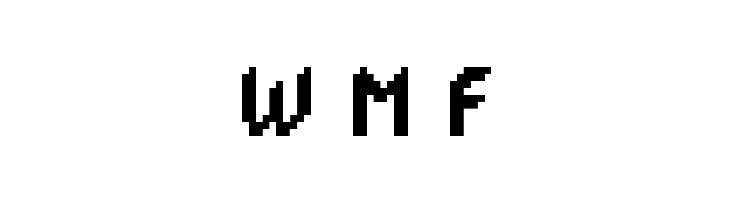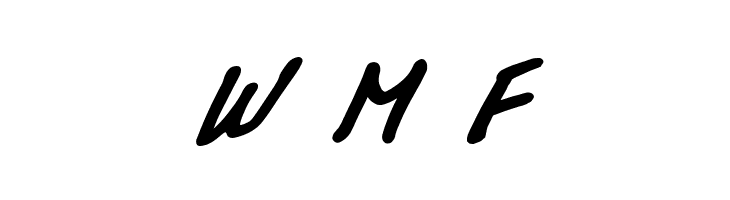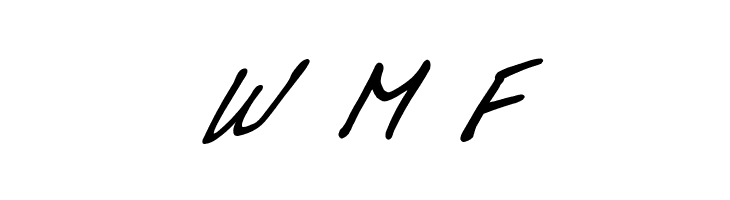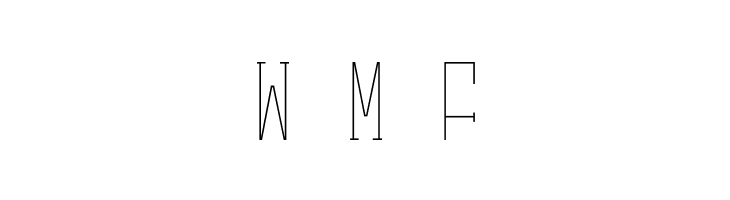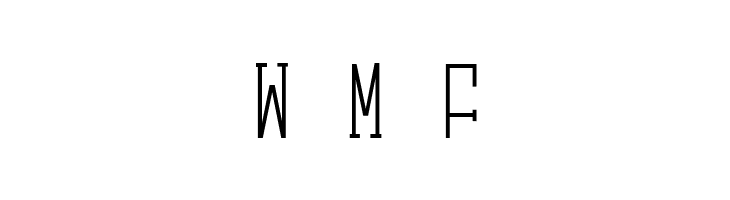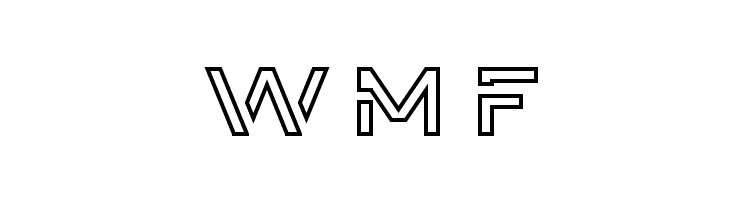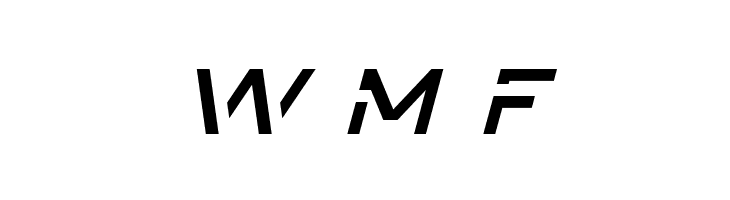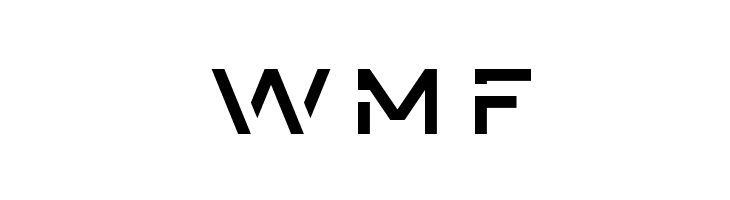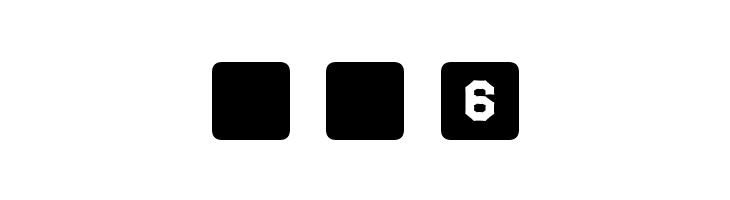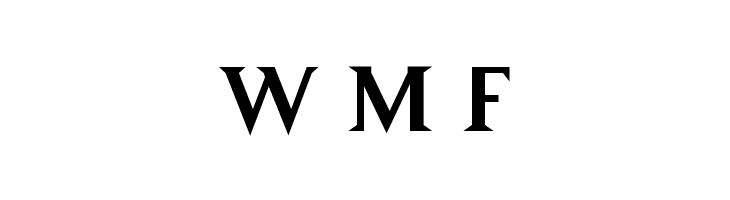
A bold, geometric font with a futuristic and modern design.
A sleek, modern italic font with a dynamic, futuristic design.
A modern, geometric outline font with a futuristic design.
A geometric, angular font with thin strokes and a futuristic style.
A bold, geometric font with a modern and industrial style.
A lively, flowing script font with elegant, cursive letterforms.
A jagged, distressed font with a chaotic and intense style.
A modern, dotted font with a playful and unique style.
A bold, expressive handwritten font with dynamic strokes and a lively style.
A bold, geometric typeface with a modern, industrial feel.
A playful, pixelated font with a retro digital aesthetic.
A bold, playful font with dice and gaming symbols, perfect for decorative use.
Geometric, dice-themed symbol font with numbers, directions, and dots.
Geometric triangular symbols with numbers and compass directions.
A decorative collection of themed symbols and numbers in bold, circular designs.
A playful, dice-inspired font with bold, blocky characters and geometric symbols.
Dice-themed decorative font with numbers and dot patterns in pentagons.
Numerals inside twelve-sided polygon shapes, resembling dice.
Geometric twenty-sided polygon design with bold numbers.
A bold, decorative font with rounded, thick characters.
A modern, geometric font with rounded edges and high legibility.
A bold, playful handwritten font with thick, rounded strokes.
A bold, italic script font with a dynamic, handwritten style.
A fluid, italicized handwritten font with a dynamic and elegant style.
A bold, playful font with irregular, organic shapes and a hand-drawn appearance.
A playful, dripping font with irregular outlines and dynamic shapes.
A bold, bone-themed decorative font with a playful, hand-drawn style.
A bold, modern font with geometric and organic elements.
A bold, geometric font with a modern and dynamic style.
A bold, rugged font with a gothic, hand-carved appearance.
A bold, gothic-inspired font with sharp serifs and dramatic flair.
A bold, dramatic serif font with a modern twist, featuring sharp serifs and a strong presence.